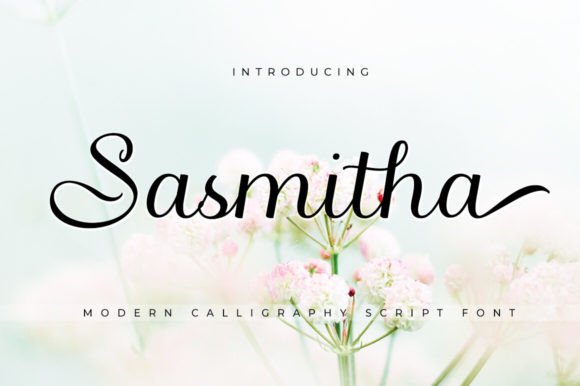
Welcome to the world of Sasmitha Font, a modern script font that will set your designs apart with its captivating beauty. Cooldesignlab, the creative force behind this masterpiece, has carefully crafted each character with intricate details, resulting in an elegant style that exudes sophistication and charm.
Sasmitha's allure lies in its ability to seamlessly blend classic and contemporary elements, creating a timeless font that complements various design projects. Its delicate copper decorative script evokes a sense of nostalgia while maintaining a modern edge, ensuring your designs stand out in a crowded digital landscape.
With its pleasing aesthetics, Sasmitha captivates the eyes with its clean, feminine, and sensual curves. The font's simplicity and remarkable readability make it a versatile choice for a wide range of applications. Its smooth letter connections create a visual symphony, adding a touch of elegance and luxury to your designs.
Whether you're a seasoned designer or just starting your creative journey, Sasmitha Font is the perfect companion for your projects. Its versatility allows you to explore endless possibilities, from stylish logos and branding materials to captivating social media graphics and eye-catching website designs.
Unleash your creativity and let Sasmitha Font take your designs to new heights. Embrace its charm and see how it transforms your projects into visually stunning masterpieces. Its captivating presence and unmatched elegance will leave a lasting impression on your audience, ensuring your designs shine brighter than ever before.